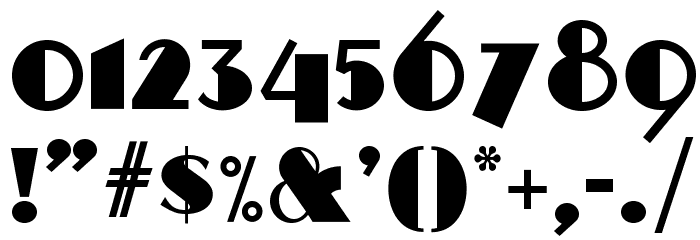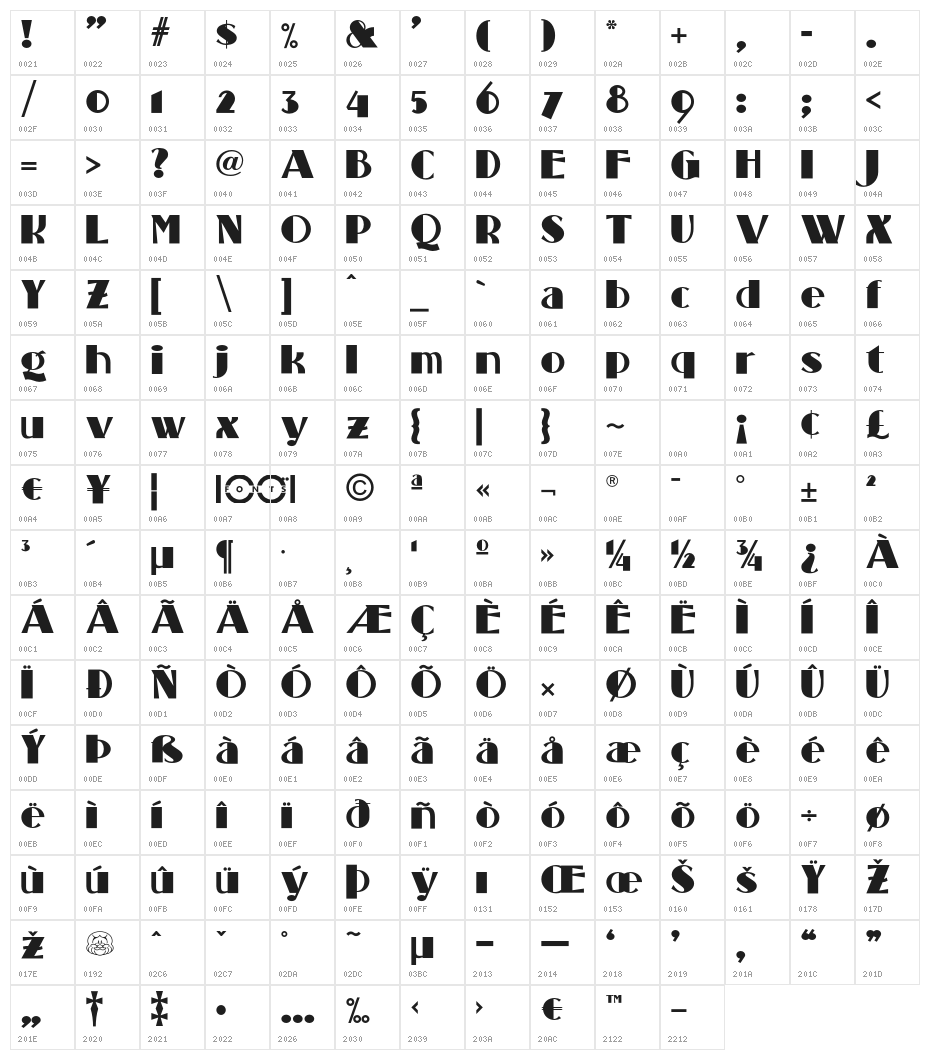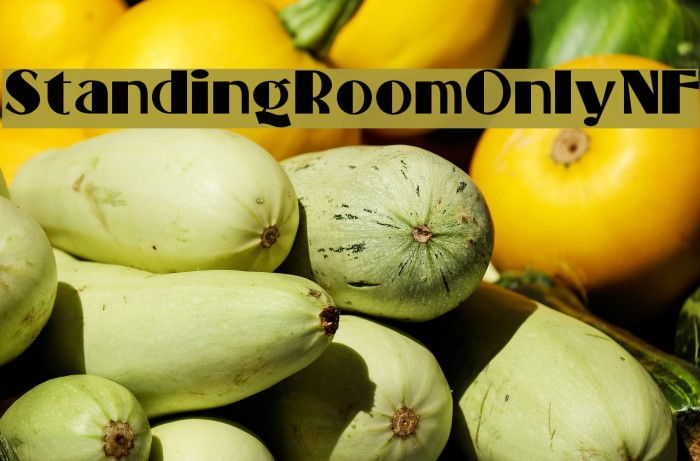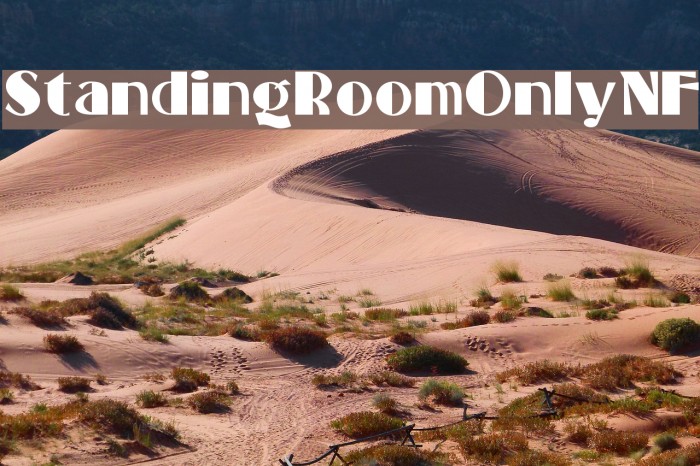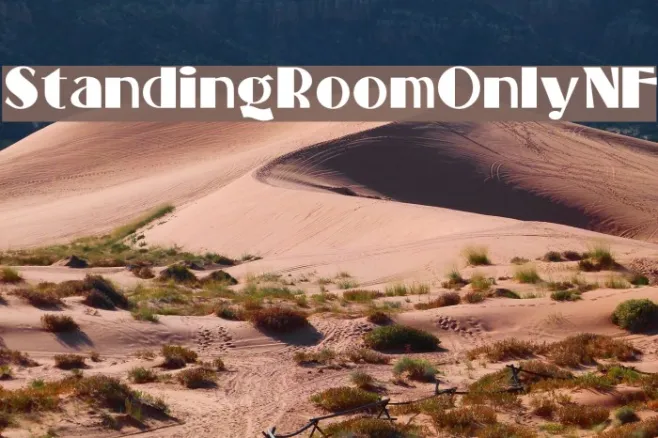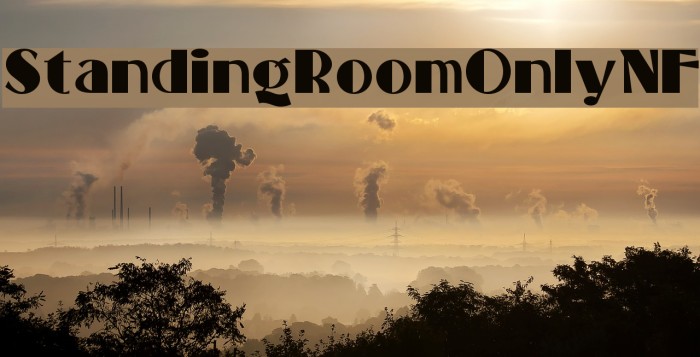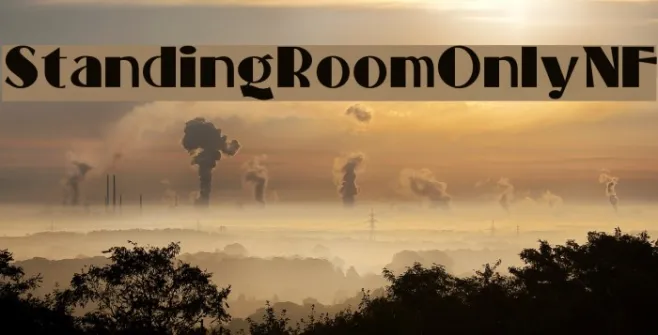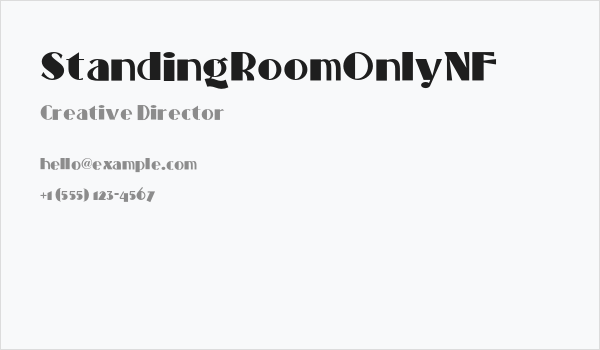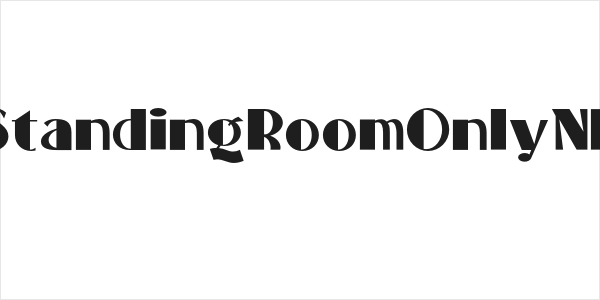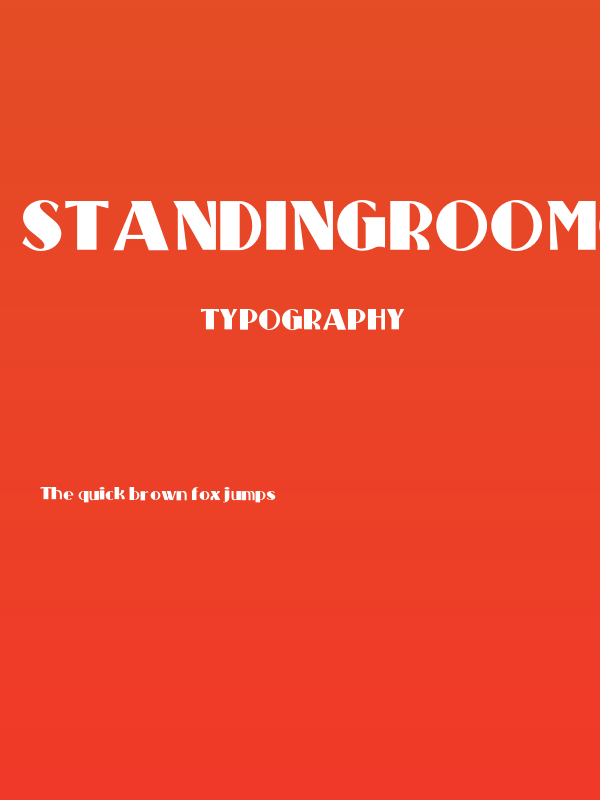
StandingRoomOnlyNF Font
StandingRoomOnlyNF Description
This font features a bold and striking design with high contrast between thick and thin strokes, creating a dramatic and eye-catching appearance. The characters are crafted with sharp, angular edges and unique geometric shapes, giving it a modern and avant-garde feel. The uppercase letters are particularly bold, while the lowercase letters maintain a consistent style with slightly more curvature. The numerals are distinct and maintain the bold aesthetic, ensuring readability. Special characters are designed to match the overall style, making the font versatile for various uses.